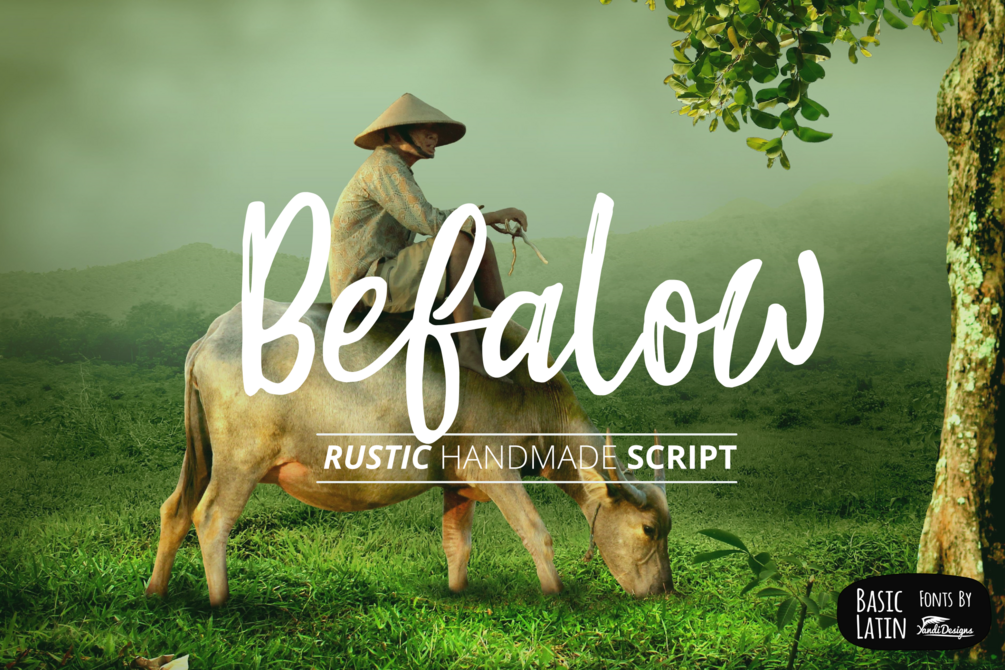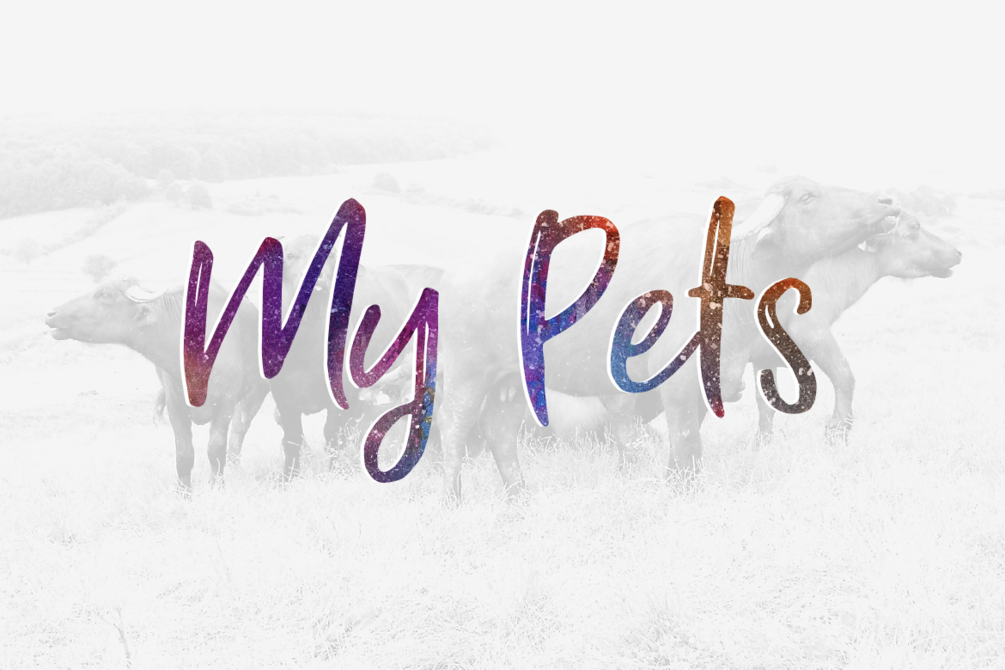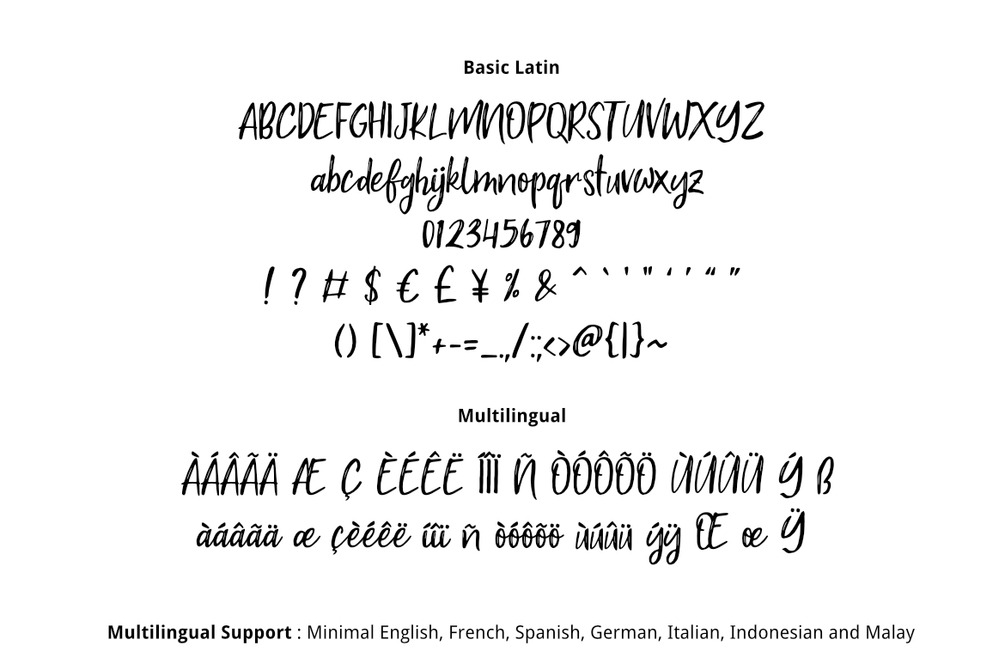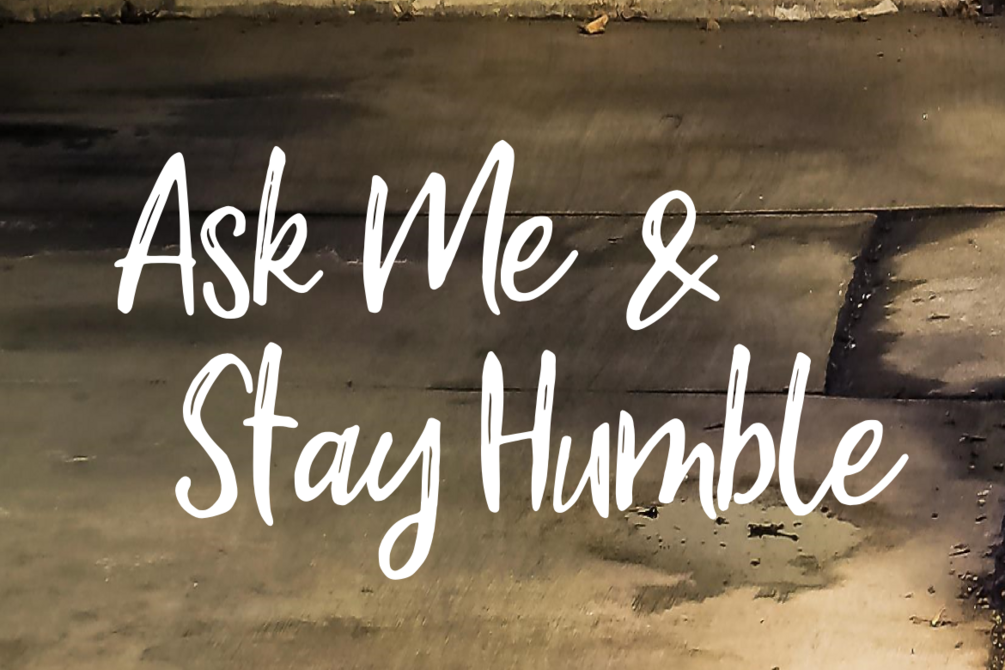
Befalow Rustic Font
Befalow Font
Simple brush font , suitable for many project , quotes, logo , heading , title etc.
Unicode Basic Latin (Standard English character , number, symbol)